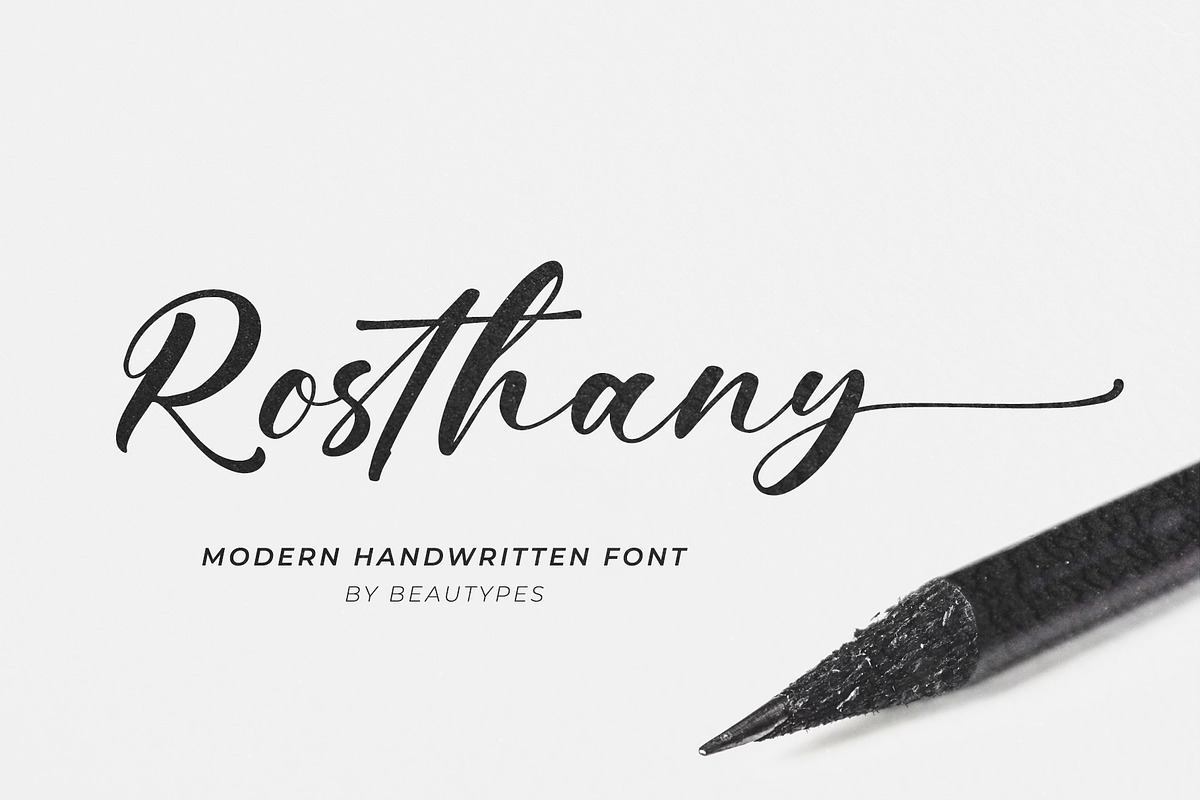
Add a personal, artistic touch to your designs with Rosthany Handwritten Script Font Free Download — a beautifully crafted handwritten script font that flows like a signature on paper. Perfect for wedding invitations, personal branding, social media graphics, greeting cards, and any creative project that needs a refined, authentic feel.
Rosthany features elegant curves and smooth connections that bring a human touch to your typography while maintaining high readability. It includes uppercase and lowercase letters, punctuation, numerals, and multilingual support, offering versatility for a wide range of creative applications.